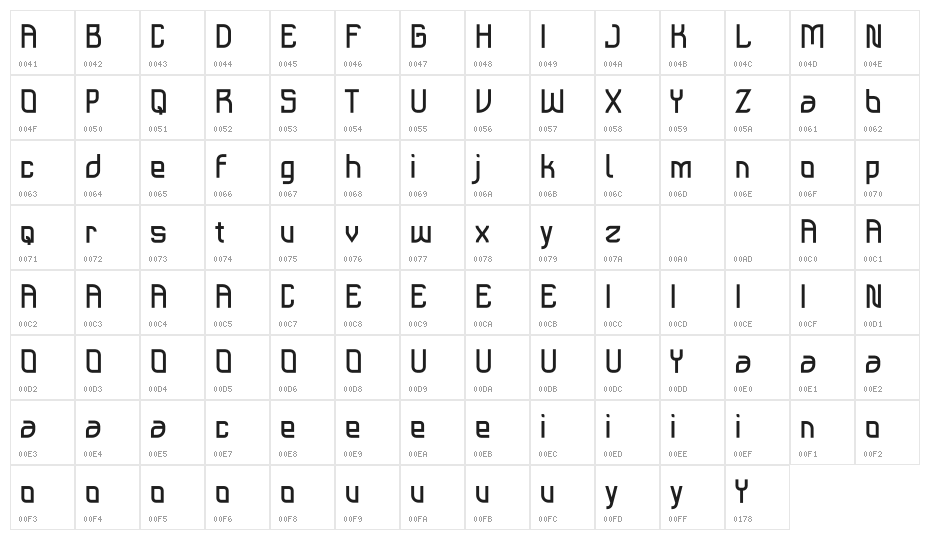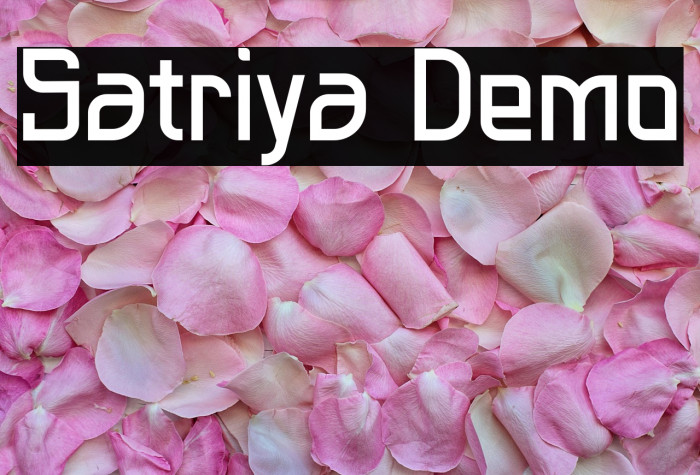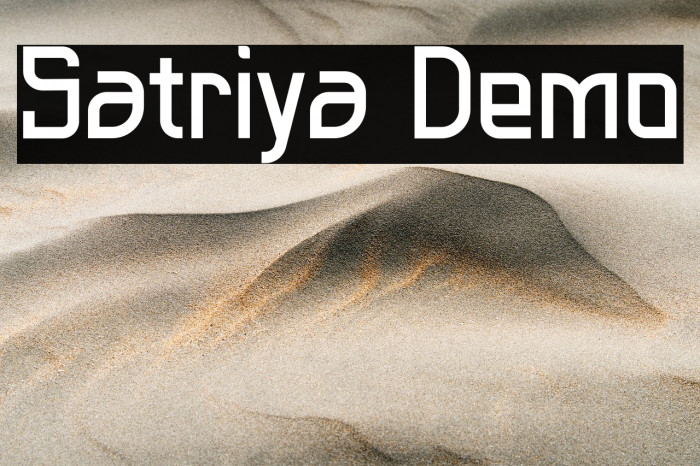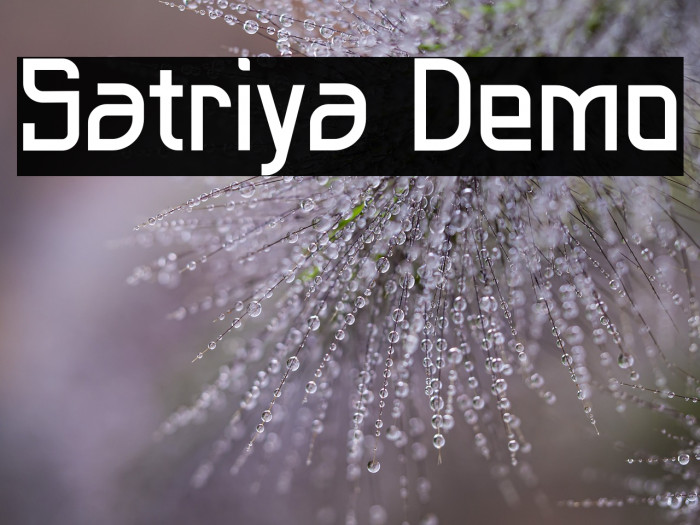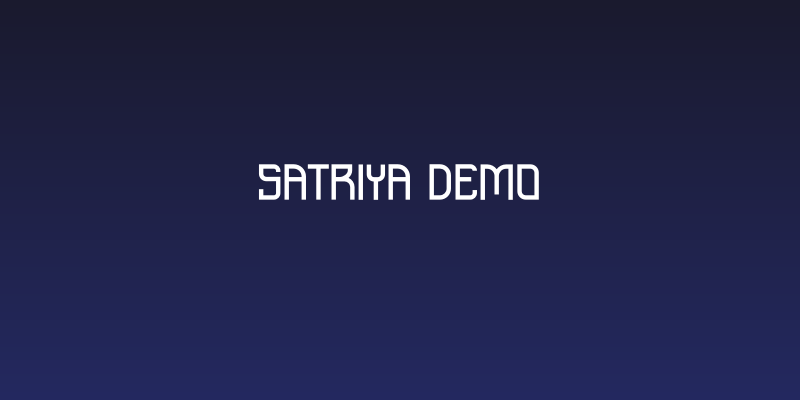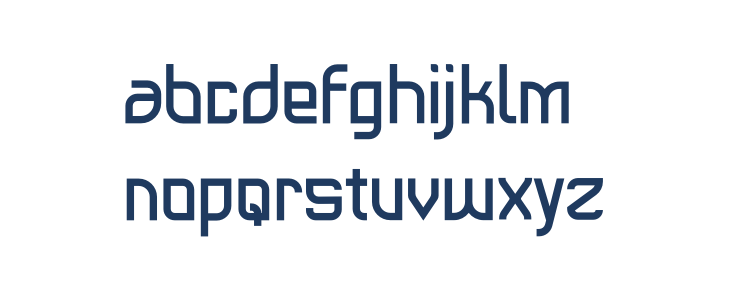
Satriya Demo Font
Satriya Demo Description
This font features a modern and geometric design with a unique blend of sharp angles and smooth curves. The uppercase letters are bold and structured, with a distinct architectural feel, while the lowercase letters maintain a consistent style that complements the uppercase. The font has a futuristic and technical appearance, making it suitable for innovative and creative projects. The characters are evenly spaced, providing a clean and organized look. The absence of special characters suggests a focus on simplicity and clarity, enhancing its modern aesthetic.
| Proposed Projects | Ideal for technology branding, modern advertising, and innovative design projects. |